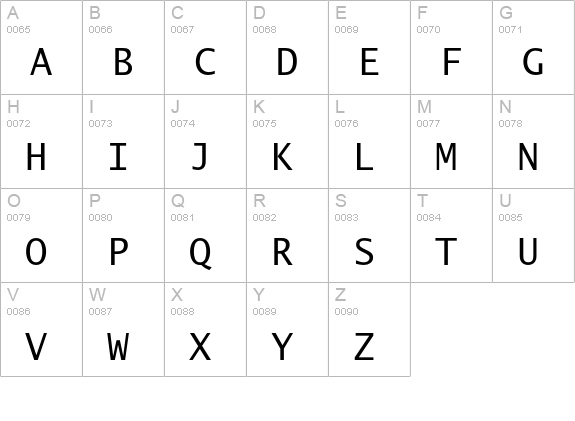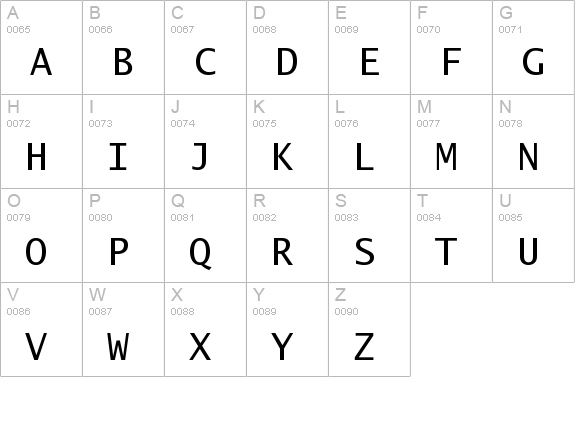
LucidaSansTypeEF-Reg Font Details
LucidaSansTypeEF-Reg is a versatile and modern sans-serif font that exudes elegance and clarity. With its clean lines and balanced proportions, this font is perfect for a wide range of design projects, from branding to editorial layouts. Its timeless appeal makes it a popular choice for both print and digital applications. What sets LucidaSansTypeEF-Reg apart is that it is not only aesthetically pleasing but also free for anyone to use. This means you can elevate your designs without worrying about breaking the bank. You can easily download LucidaSansTypeEF-Reg for free at FontsMarket.com, where you'll find a plethora of other high-quality fonts to enhance your creative projects. Don't miss out on this opportunity to add a touch of sophistication to your designs with LucidaSansTypeEF-Reg.